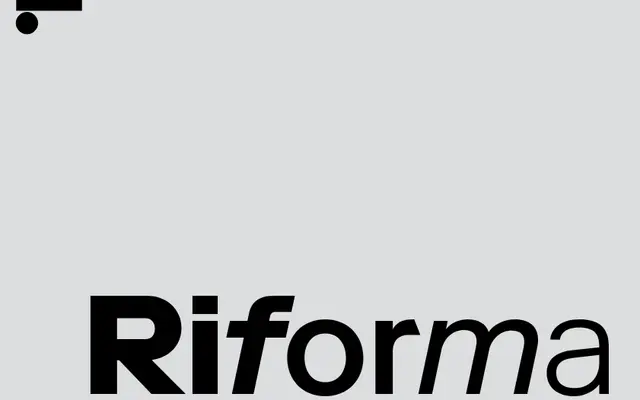
LL Riforma
Lineto · NORM (Dimitri Bruni, Manuel Krebs, Ludovic Varone) · 2018
A geometric sans reconstructed from a 1972 Italian corporate identity proposal, developed over five years of live project use by Zurich studio NORM.
Originating from a set of 14 colour slides documenting an elaborate but never-realised Italian corporate identity for a company called Italcore, Riforma was built outward from a single documented weight, expanding to five — Light, Regular, Medium, Bold and Heavy — each with italics. The angular terminal cuts, available via stylistic set 1, echo the logotype version visible in the original 1972 presentation boards. Symbols, arrows and graphic elements drawn from the source material are embedded as OpenType features throughout the family, with a monospaced variant, LL Riforma Mono, released in 2024.
A systematic geometric sans with distinctive angular terminal cuts, developed by the Zurich studio NORM from a 1972 Italian corporate identity typeface. Its proportions and methodical weight range place it firmly in the geometric sans tradition.